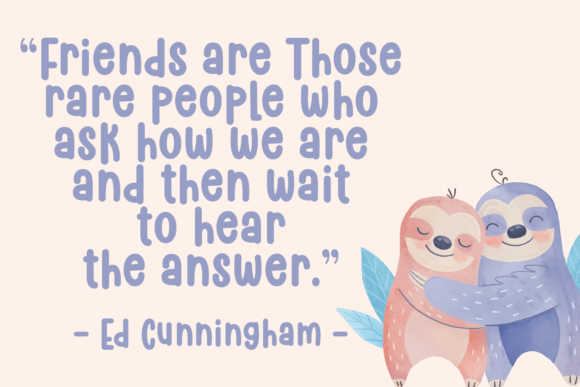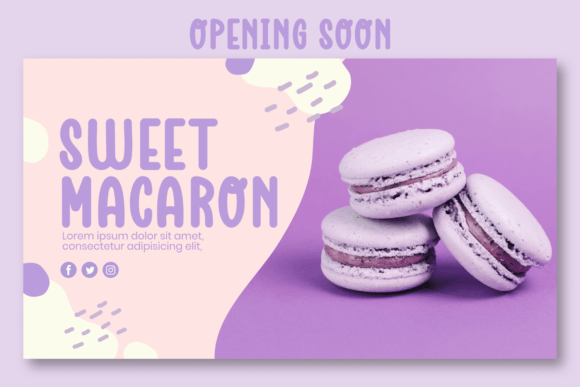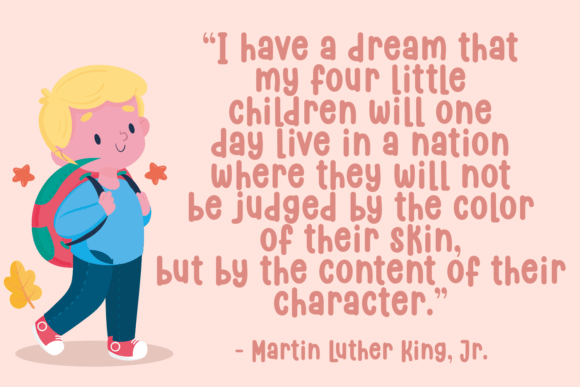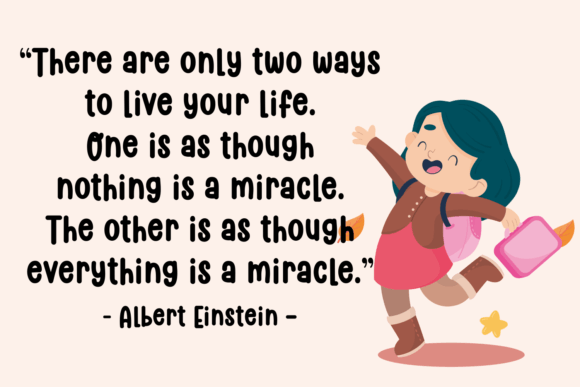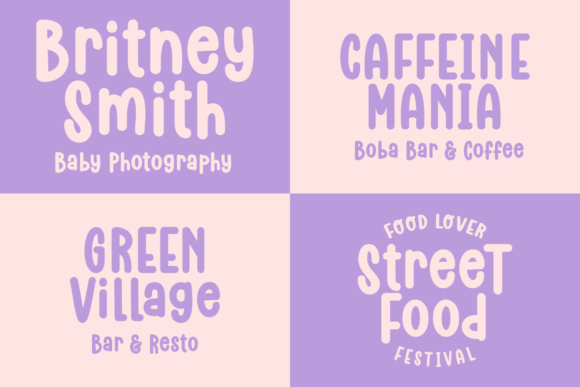
The Ultimate Design BFF: Bestie Friendly Font
Have you ever stared at a blank page, feeling like your creativity has abandoned you? You know, that moment when you desperately need a spark to ignite your imagination? For designers, this is a common plight, but fear not, friends, because we’ve got just the thing to get those creative juices flowing: the Bestie Friendly Font!
This chubby and playful display font is the perfect companion for any design project. Whether you’re crafting a social media post, designing a logo, or creating a birthday invitation, Bestie Friendly Font is the ultimate sidekick. Its value lies in its versatility, making it an essential addition to any designer’s toolkit. With Bestie Friendly Font, you’ll be able to bring your designs to life in a way that’s both fun and engaging.
Key Features of Bestie Friendly Font
- Font Size: The font comes in three sizes: Regular (400 units), Bold (700 units), and Extra Bold (900 units) for flexibility in design.
- Unique Characteristics: The Bestie Friendly Font features a friendly, approachable, and modern design with rounded edges and subtle curves, perfect for creating a welcoming atmosphere.
- Language Support: Supports over 100 languages, making it an excellent choice for global branding and design projects.
- Scalability: The font is designed to be highly scalable, allowing it to adapt seamlessly to various screen sizes and devices.
Bestie Friendly Font Review
I recently had the chance to work with “Bestie Friendly Font” and I must say, it’s a mixed bag. Here’s my honest review.
- Unique Character: The font has a distinct personality that sets it apart from more generic sans-serif fonts.
- Readability: Despite its playful nature, the font is surprisingly easy to read, even at smaller sizes.
- Customization: The font comes with a range of customization options, making it easy to tailor it to your specific design needs.
- Limited Style Options: While the font has a unique character, it’s not particularly versatile when it comes to style options.
- Not Ideal for Large Text: At larger sizes, the font can start to feel a bit clunky and overwhelming.
- Not Suitable for Professional Settings: Unfortunately, the font’s playful nature makes it better suited for casual or creative projects rather than formal or professional ones.
Overall, I’d say “Bestie Friendly Font” is a fun and quirky addition to any designer’s toolkit. While it may not be perfect for every project, it’s definitely worth considering for the right type of design.
Bestie Friendly Font is particularly suitable for social media graphics, invitations, and other casual designs.
Bestie Friendly Font is ideal for creative projects, such as posters, flyers, and infographics.
Bestie Friendly Font is great for presentations, reports, and other professional documents.
For the most effective use of Bestie Friendly Font, keep the following tips in mind:
- Use it for casual, creative projects.
- Pair it with bright colors and playful graphics.
- Experiment with different font sizes and styles.
Common use cases for Bestie Friendly Font include social media graphics, party invitations, and creative business branding.
Alternatives to “Bestie Friendly Font” for Designers
Lato Font is a modern sans-serif typeface designed by Łukasz Dziedzic. It is perfect for use in digital products, such as websites and mobile apps, due to its clean and legible design. Lato Font is a great alternative to Bestie Friendly Font when you need a font that is both modern and easy to read. Compared to Bestie Friendly Font, Lato Font has a more geometric and futuristic feel, making it ideal for tech-related projects.
Open Sans Font is a popular sans-serif typeface designed by Steve Matteson. It is highly legible and suitable for use in a wide range of applications, from digital products to print materials. Open Sans Font is a great alternative to Bestie Friendly Font when you need a font that is both clean and versatile. Compared to Bestie Friendly Font, Open Sans Font has a more neutral and minimalist feel, making it ideal for use in a variety of contexts.